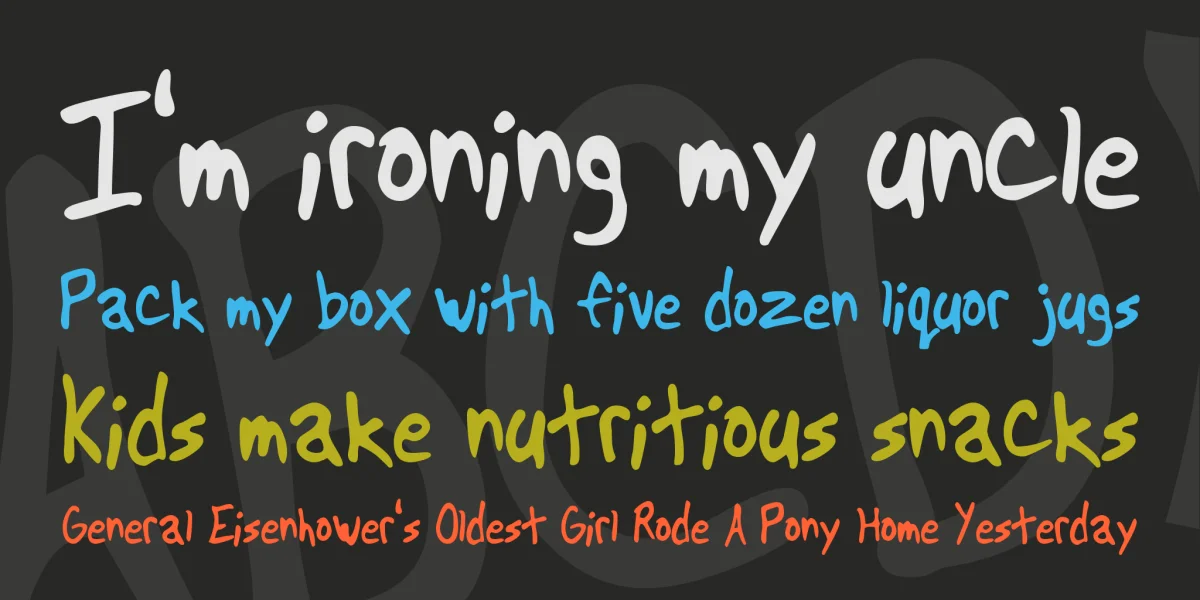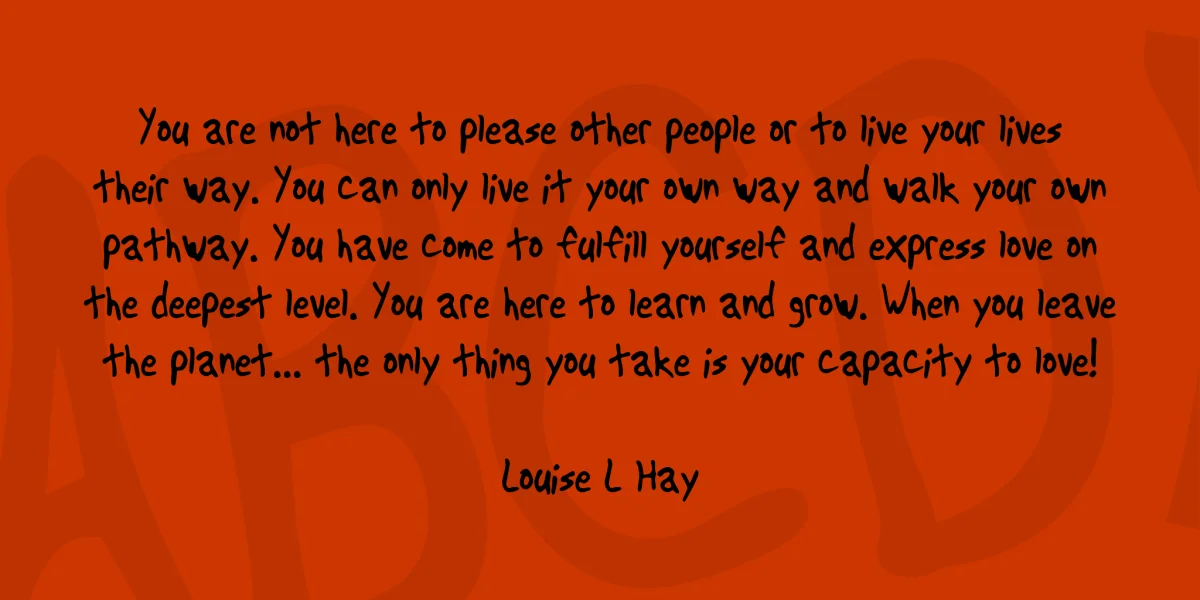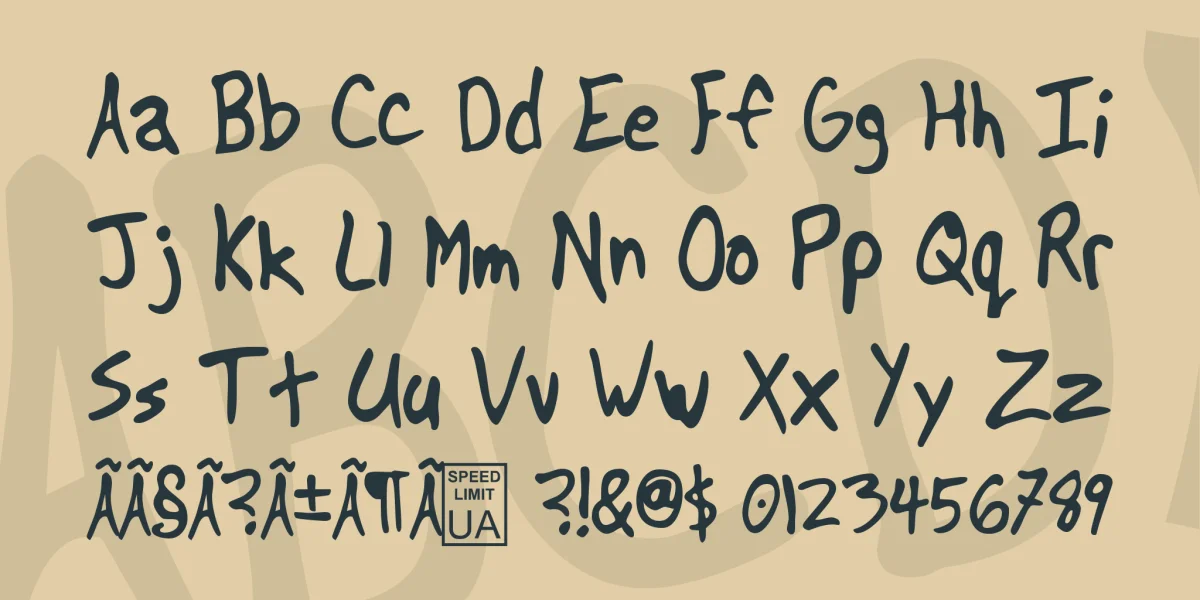
This version includes upper and lowercase letters, punctuation, and most characters found in commercial fonts. I also included some UA Type dingbats (just to amuse myself, and so you don't get those annoying boxes when you type something that isn't in the font).
What the world needs is another handwriting font. Not really. But people love them, and they are easy to create. I took a sharpie, whipped out the alphabet while I was at work, and then fonted it.